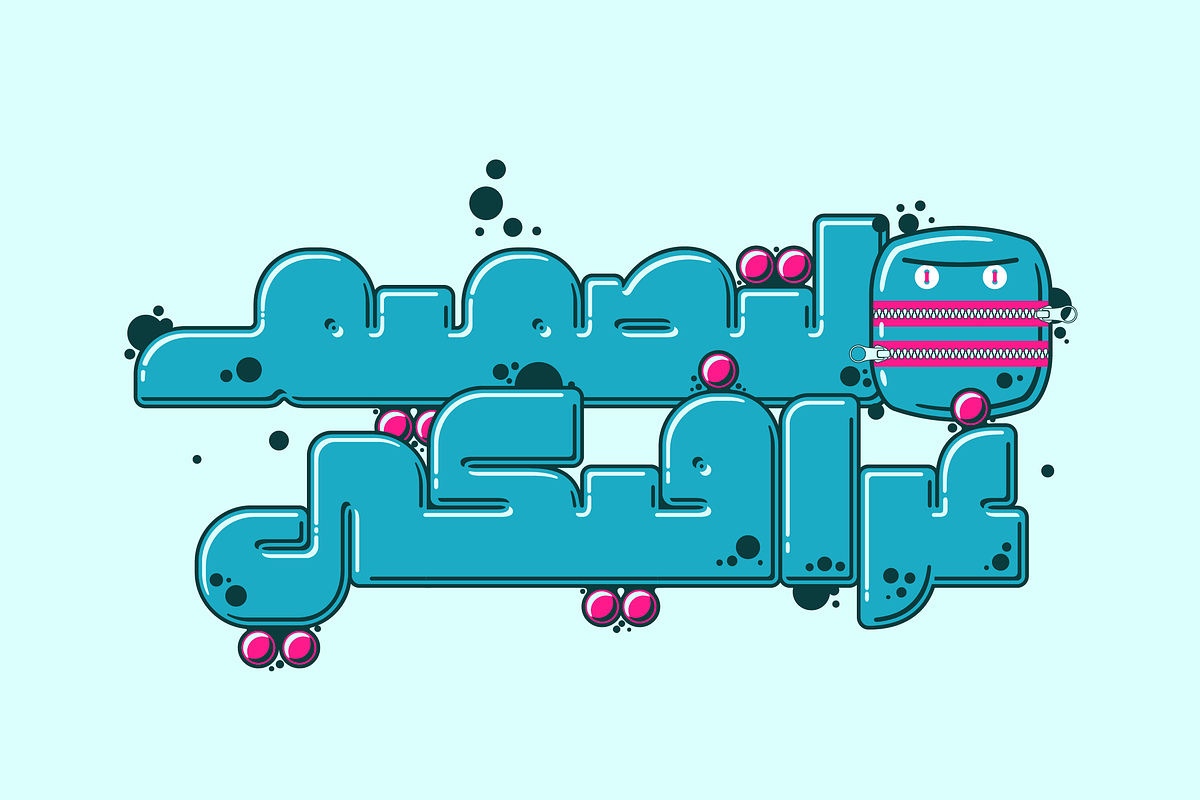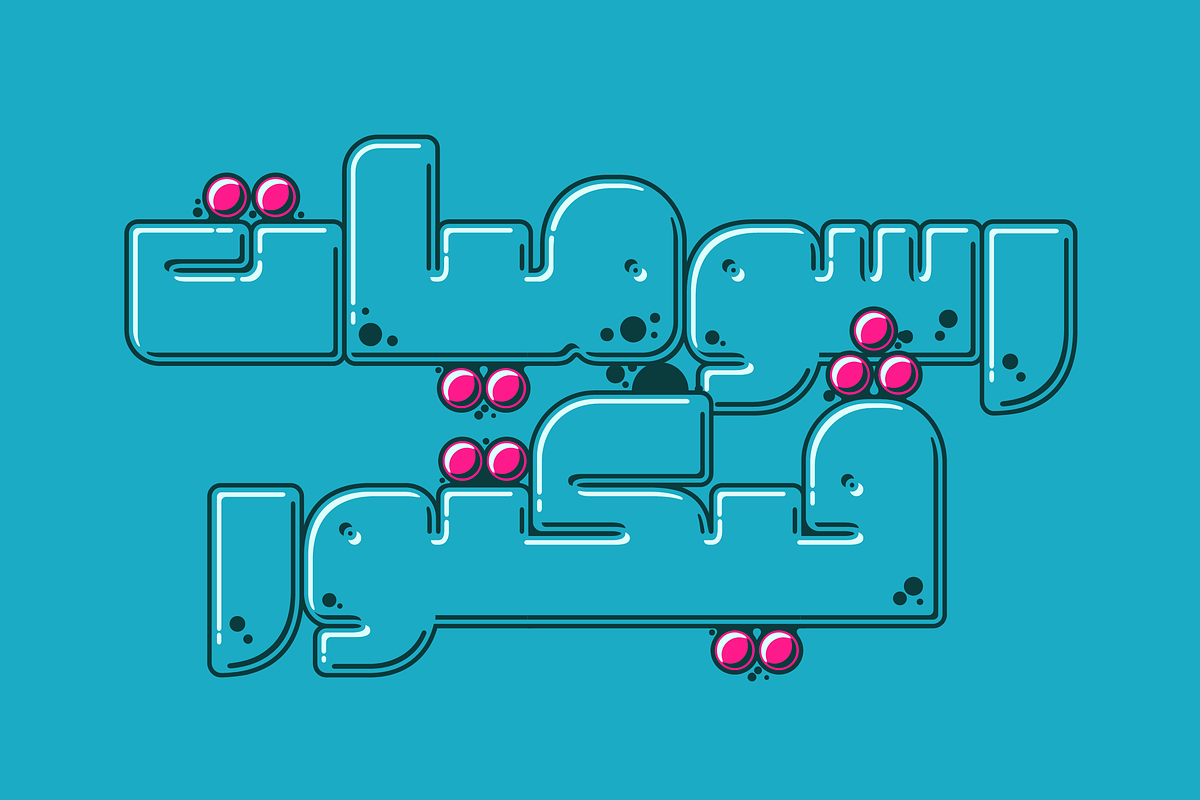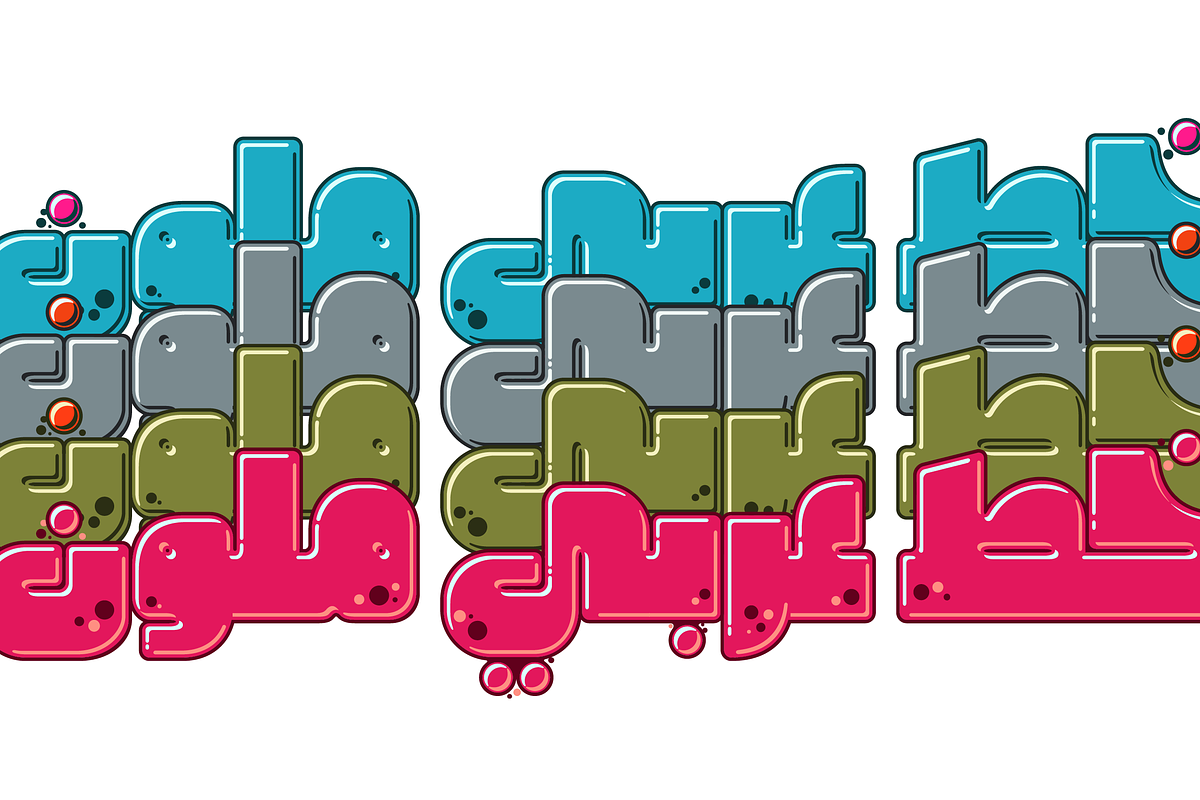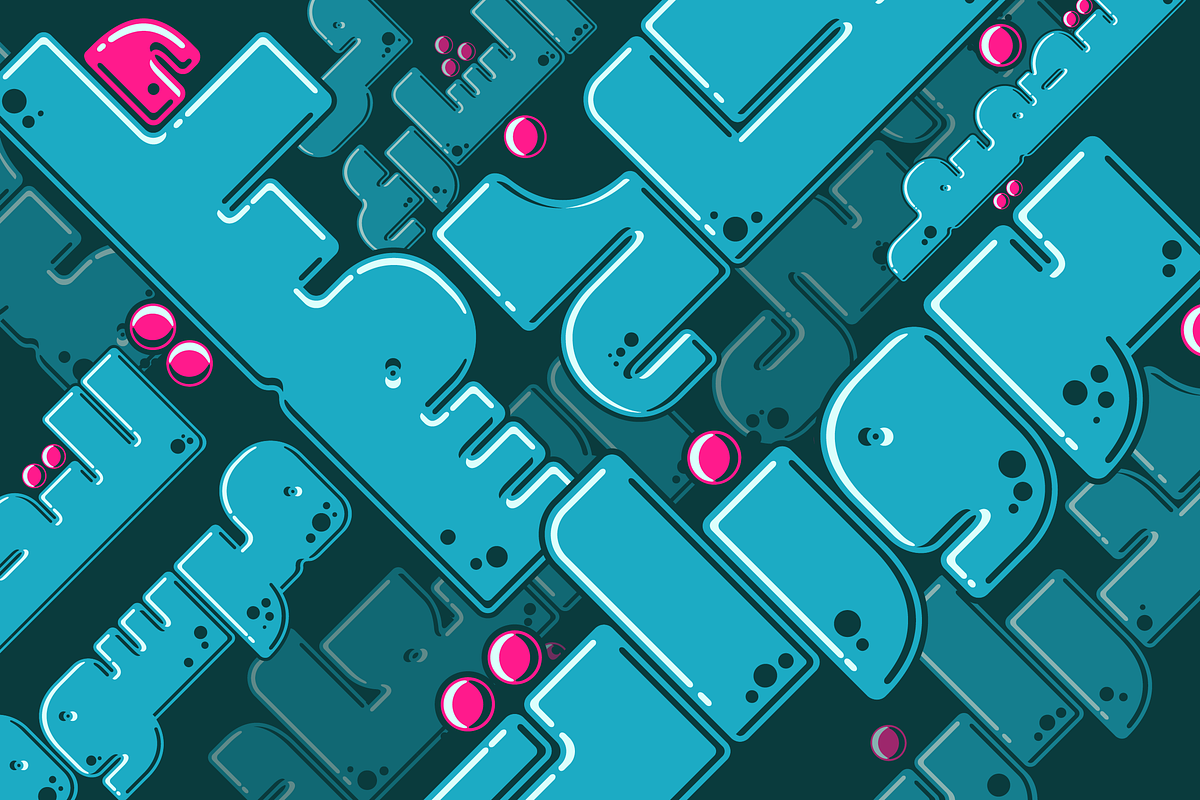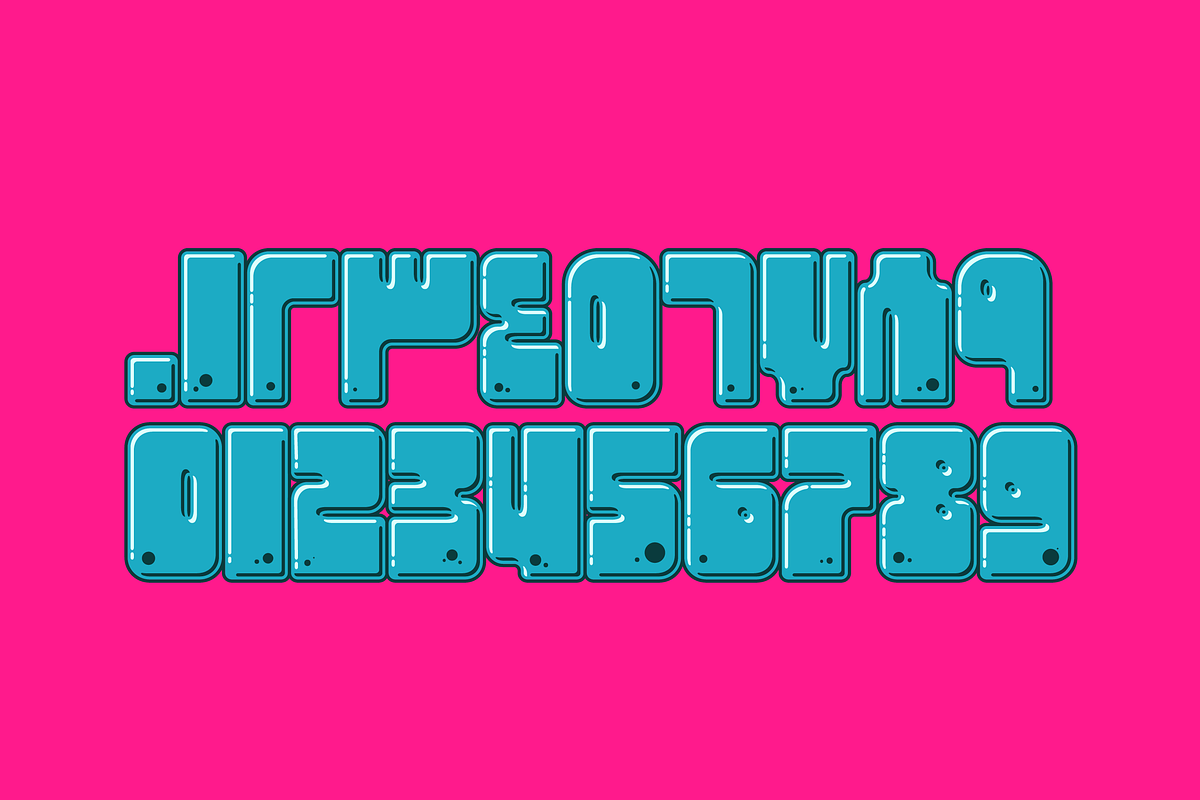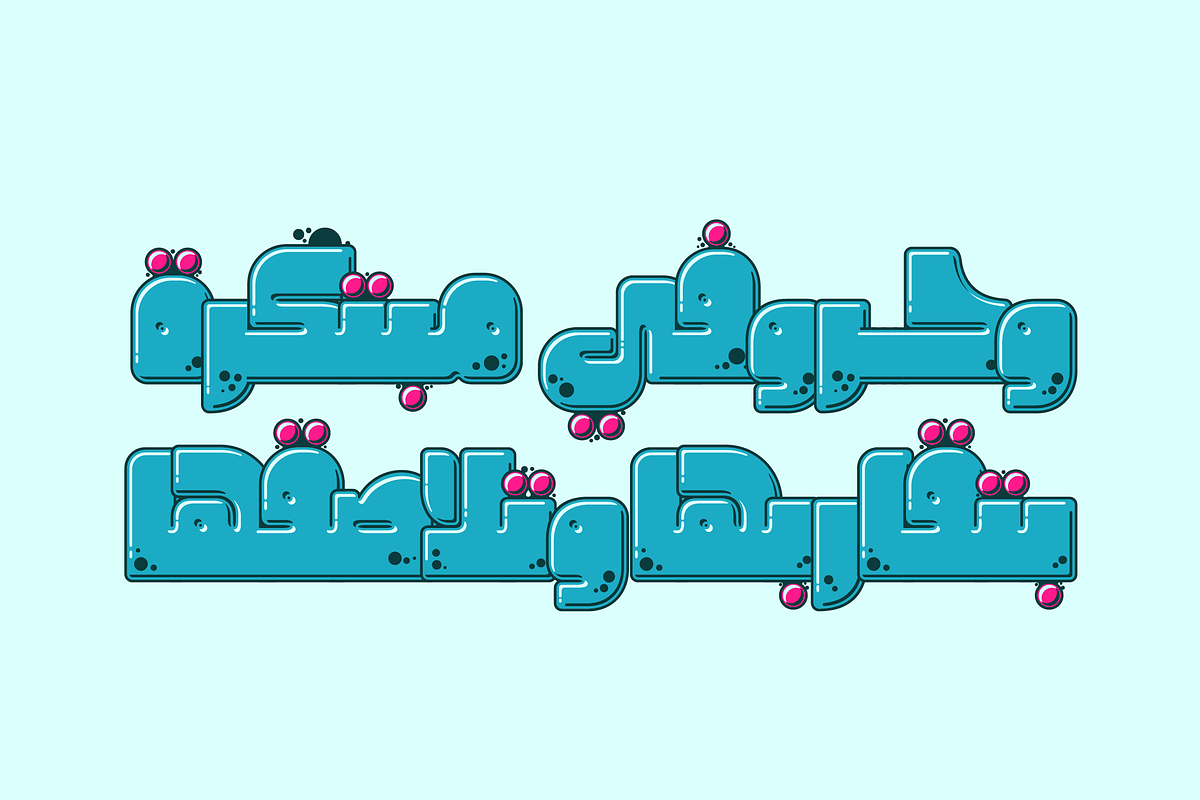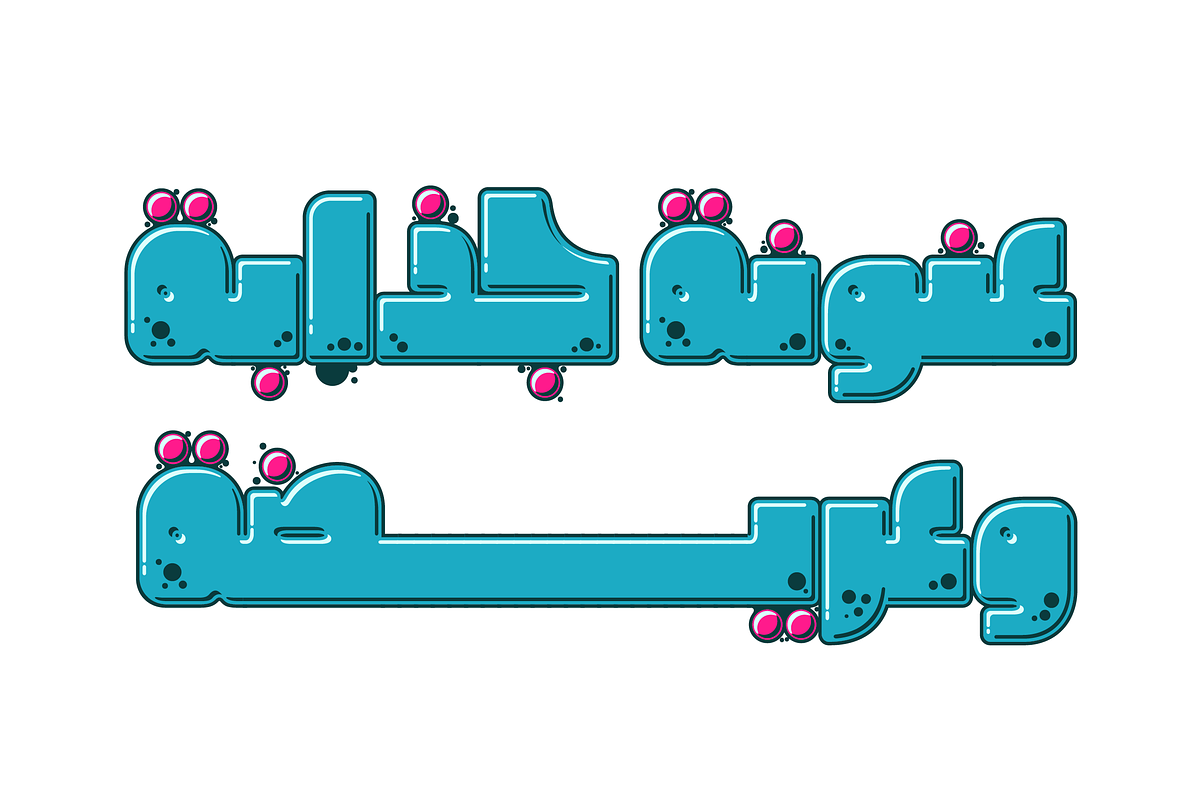
Graffitica - Arabic Font خط غرافيتيكا
Graffitica is an Arabic display font that is inspired by the Street Art fused with graffiti vibes. It is an SVG-OpenType font that comes in two vector formats (SVG-TTF and COLR-TTF) in addition to a raster format (SBIX). Graffitica font family include four styles with four different color palettes and it suits web, print and mobile applications.